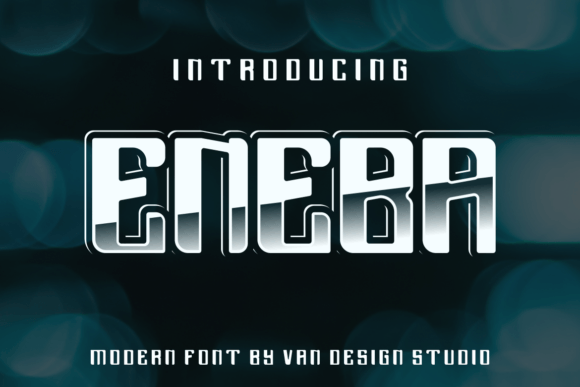
Step into the realm of digital elegance with Eneba, a sans-serif typeface that embodies modernity, technology, and sleekness. Crafted with meticulous attention to detail by vandesignstd, this font family is a symphony of clean lines, sharp angles, and subtle curves that seamlessly blend to create a contemporary masterpiece.
Journey through the world of possibilities with Eneba, a font that ignites your creativity and elevates your designs to new heights. Its crisp and refined structure brings a touch of sophistication to websites, logos, branding materials, and any digital creation you envision.
With Eneba as your digital companion, your messages will resonate with power and clarity. Its purposeful design ensures that your words cut through the noise, leaving a lasting impression on your audience. Unleash the potential of captivating headlines, engaging body copy, and impactful marketing materials that demand attention.
Embrace the digital age with Eneba, a font that speaks the language of innovation. Its modern aesthetic is a perfect match for tech-related projects, bringing a touch of cutting-edge style to your creations. Websites, apps, software interfaces, and digital products come alive with Eneba's sleek design, adding a layer of sophistication that sets you apart from the ordinary.